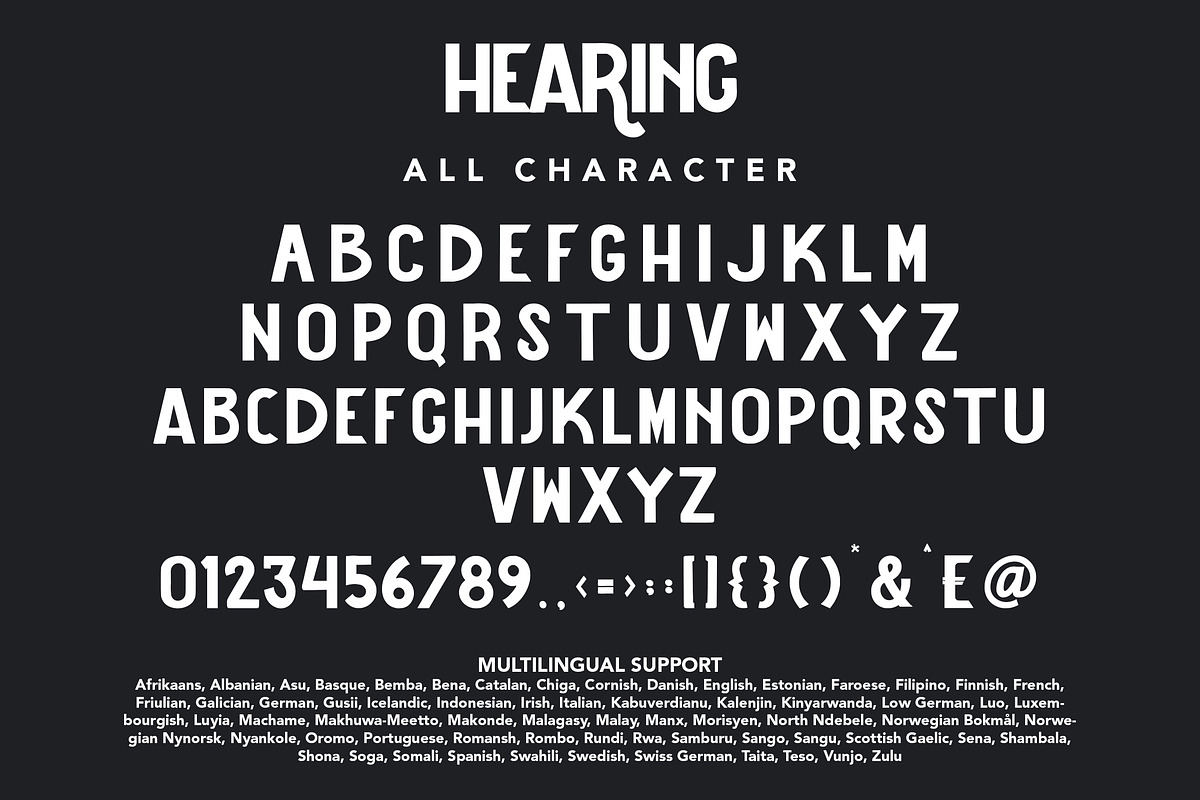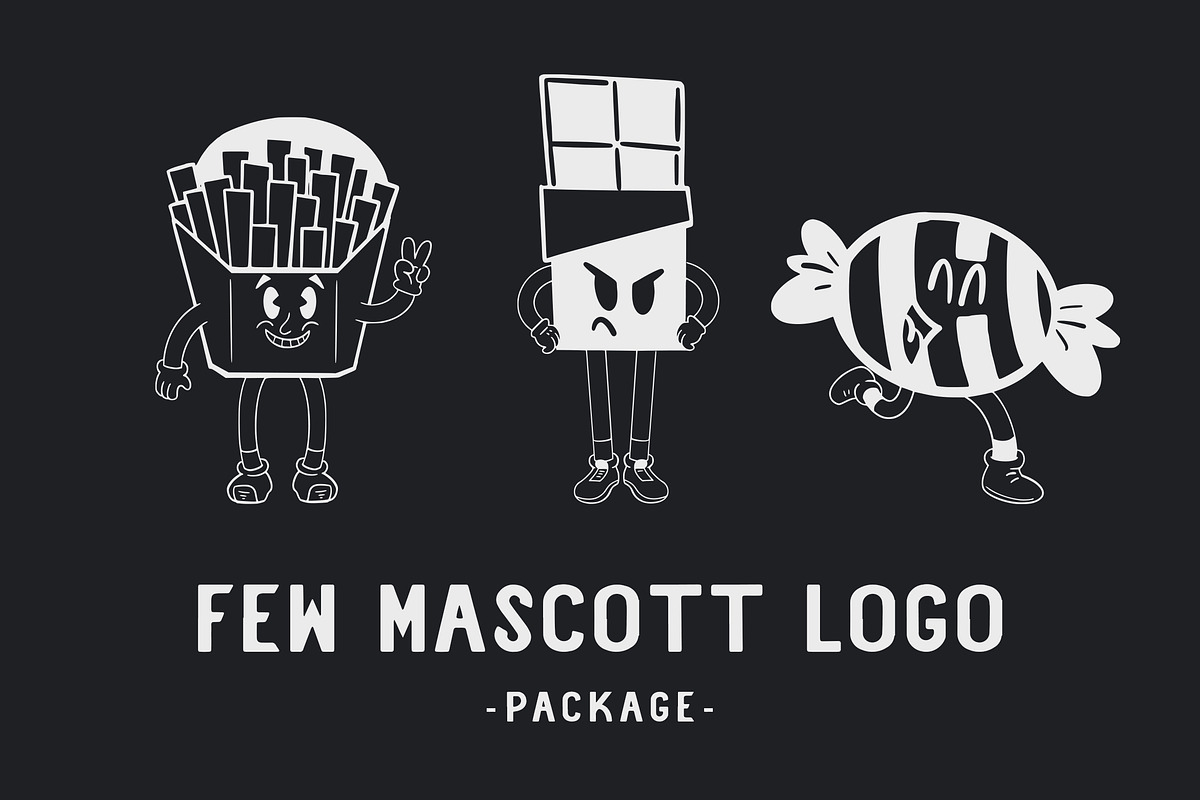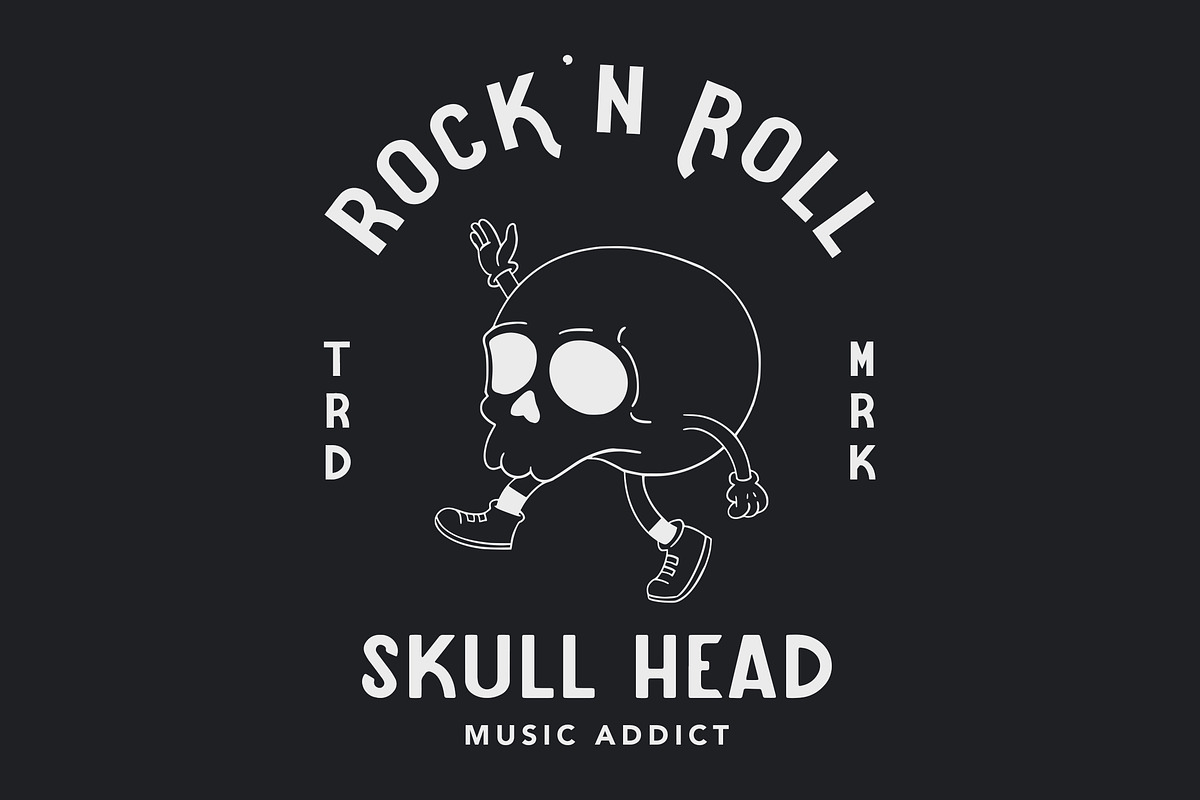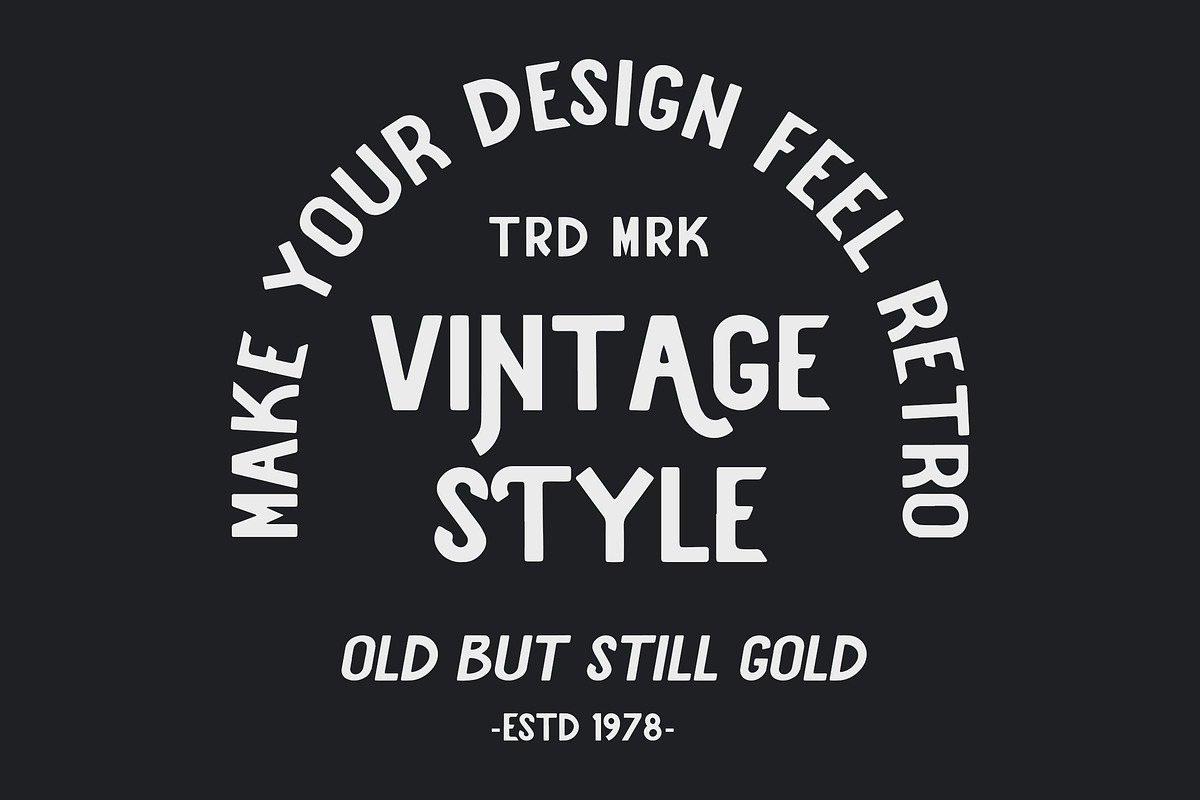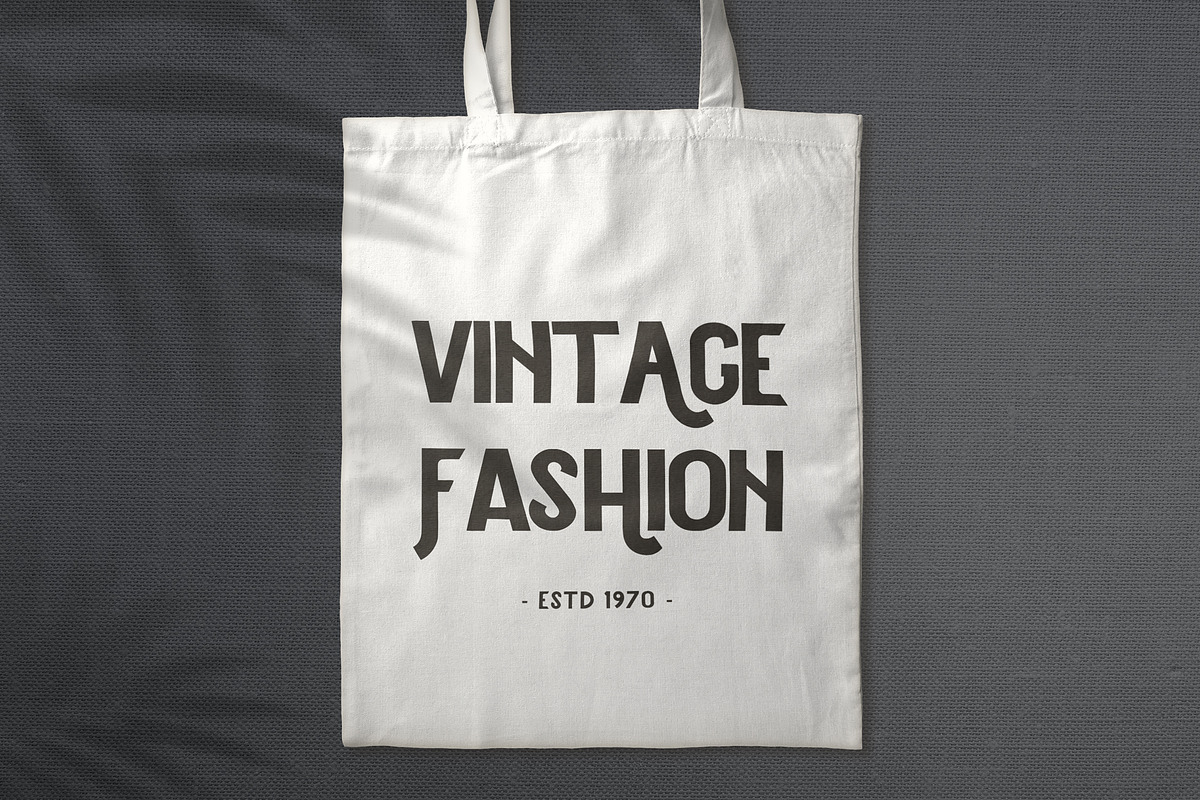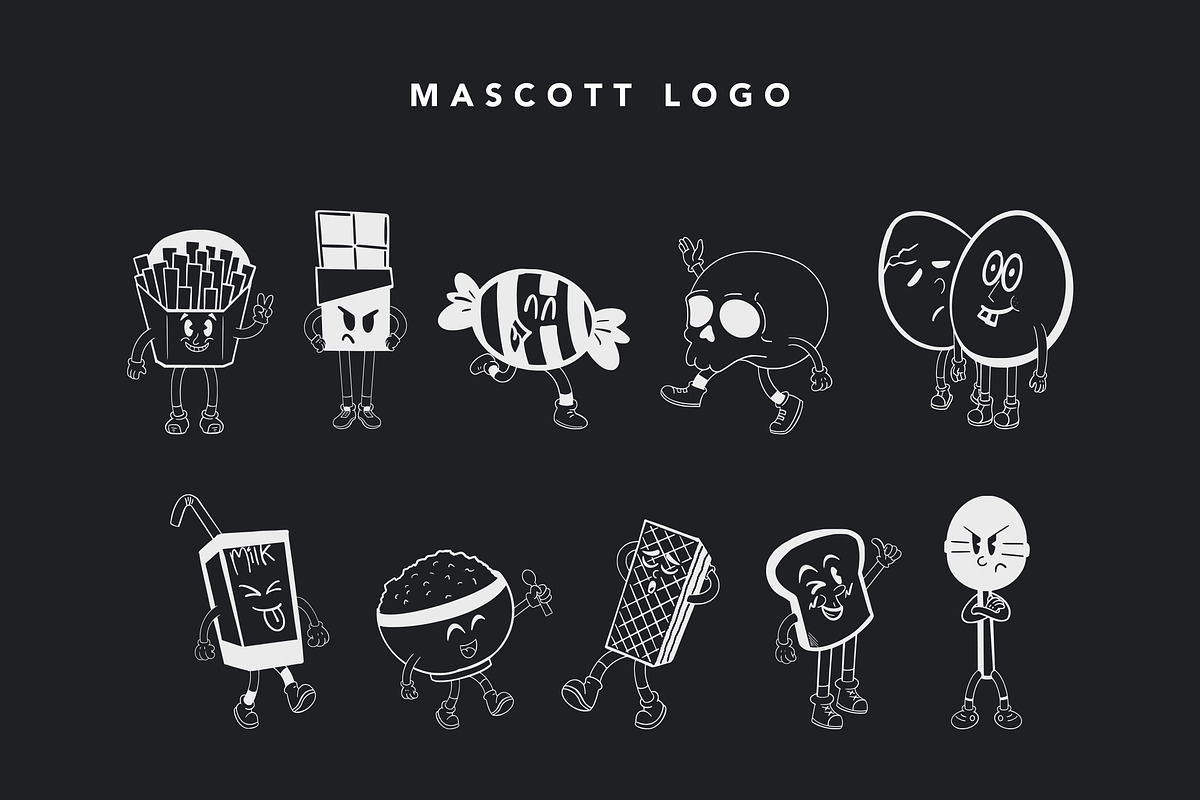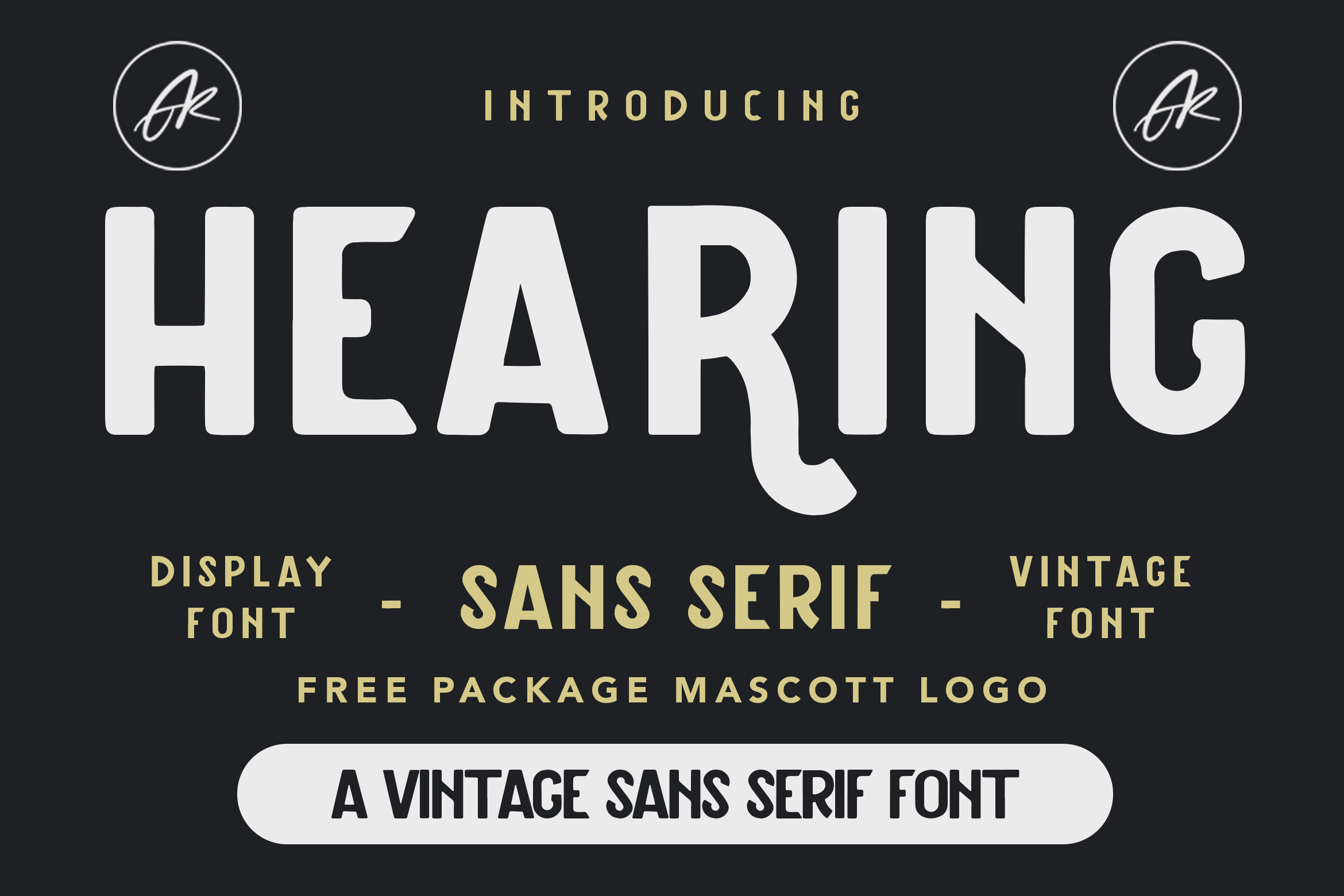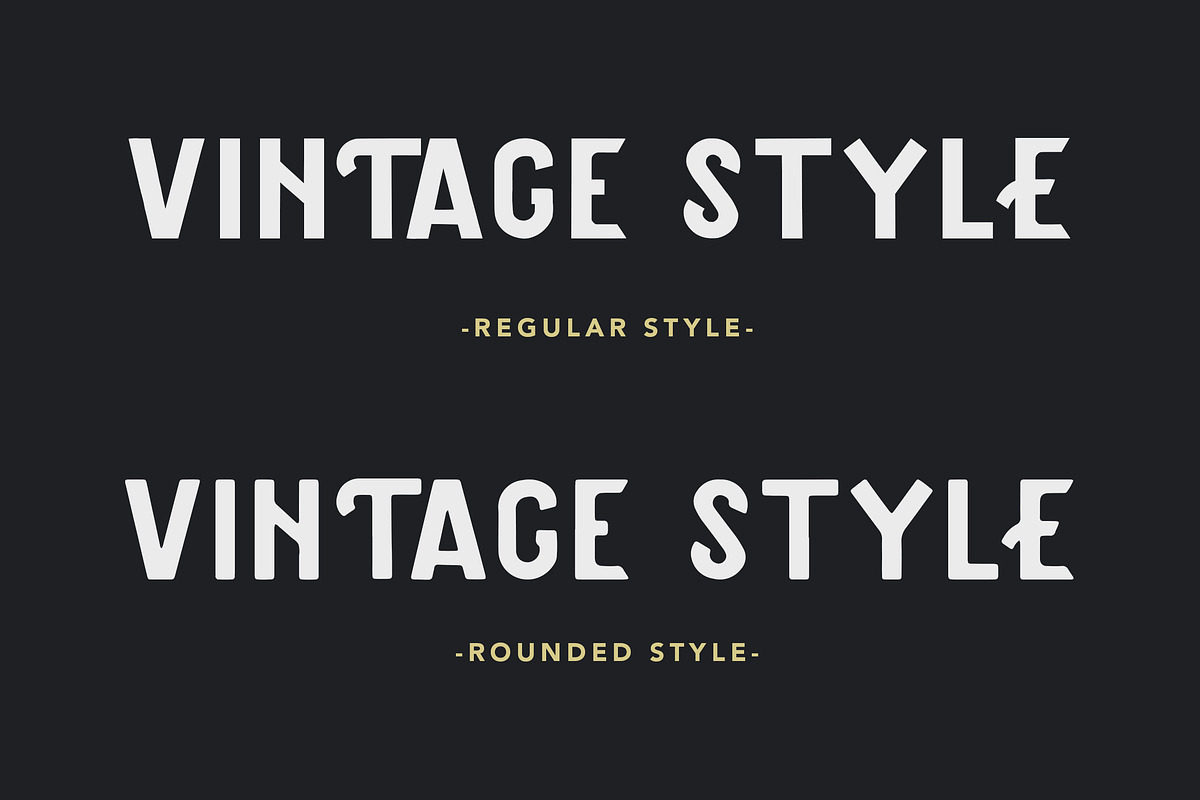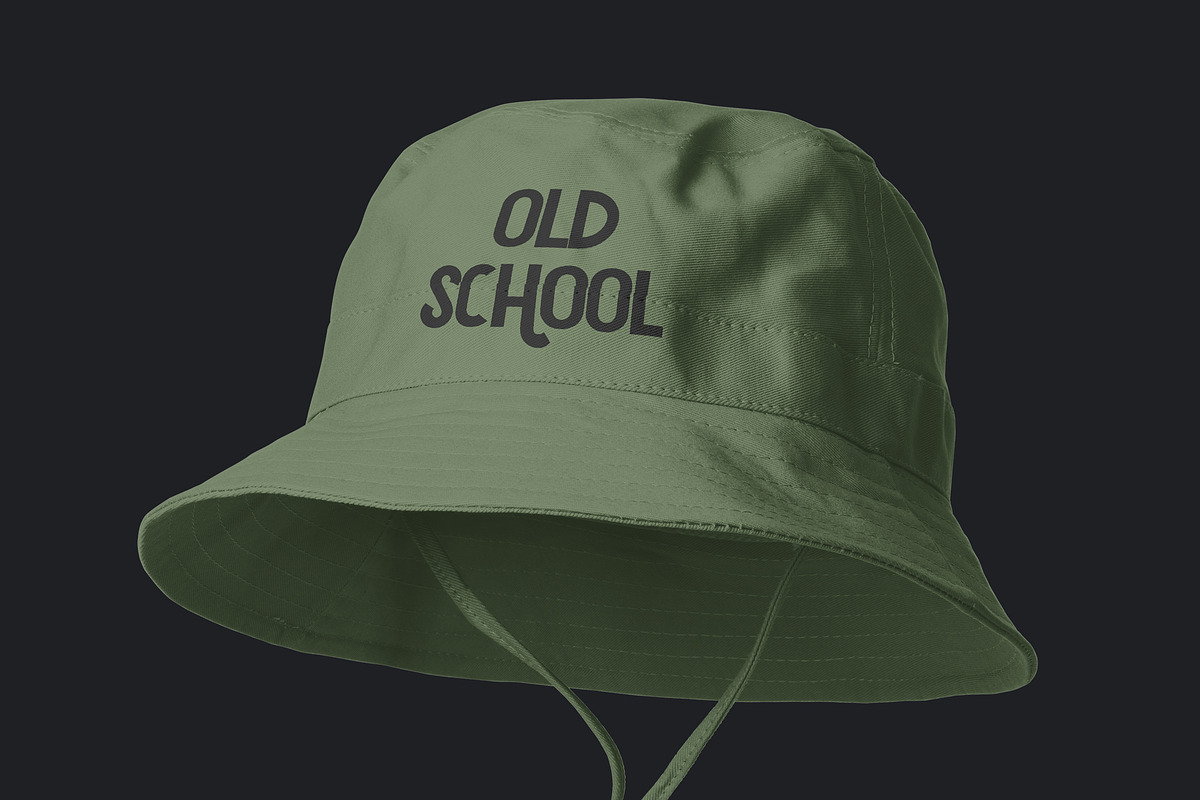
Hearing - Vintage Sans Serif Font
Hearing - Vintage Sans Serif Font is a font with distinctive handwritten characters perfect for branding projects, logos, wedding designs, media posts, advertisements, product packaging, product designs, labels, photography, watermarks, invitations, stationery, and any project who need handwritten dishes.